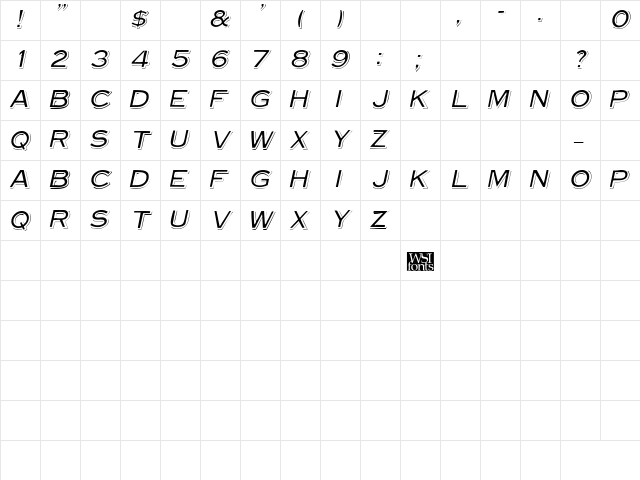
VinylCaps Italic
Design Context for VinylCaps Typeface
VinylCaps offers clean, dependable letterforms without strong stylistic allegiance, making it a practical choice for designers who need flexibility. The slanted form adds forward momentum and visual energy.